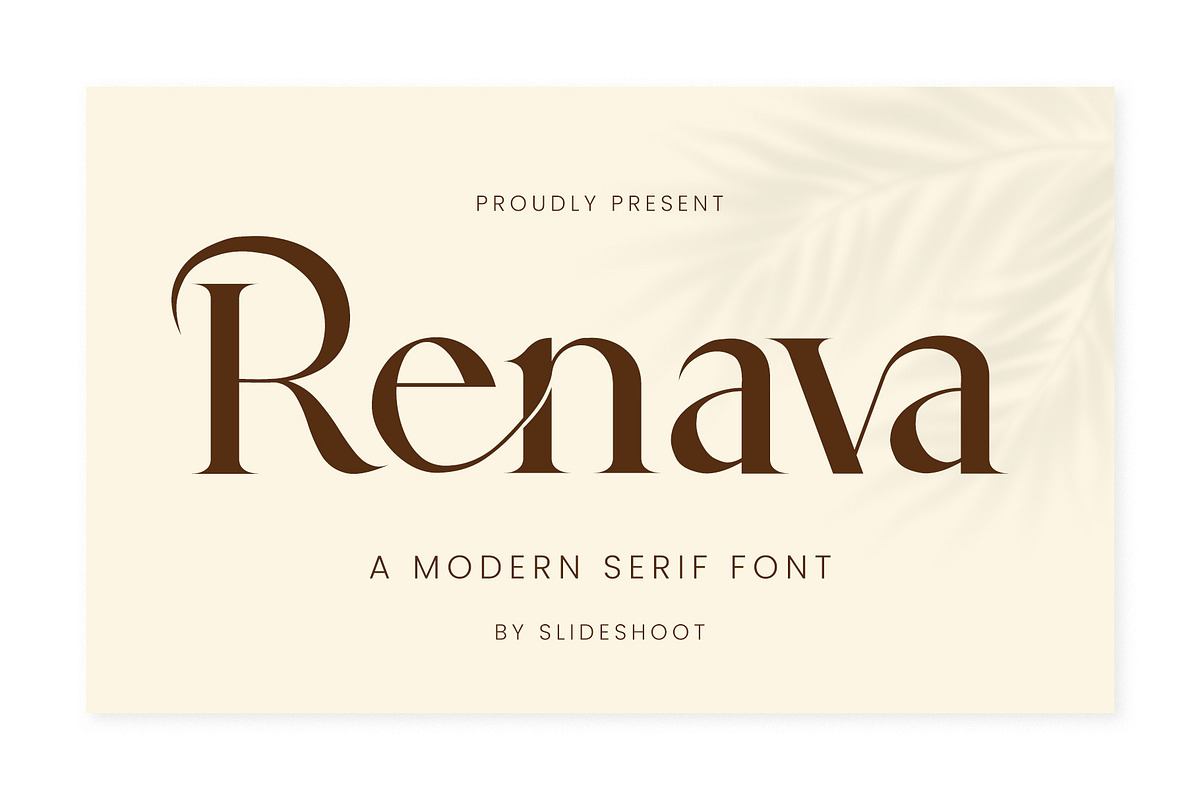
Renava Serif Font Free Download is a refined and elegant typeface that blends classic serif tradition with a modern twist. Please note, you are required to purchase this font for commercial use. It is available for free download for testing and personal projects only.
Featuring high contrast strokes and gracefully crafted serifs, Renava is perfect for branding, editorial designs, wedding invitations, packaging, and upscale advertising. Its timeless design brings a sense of sophistication and structure, making your text stand out with style and professionalism.